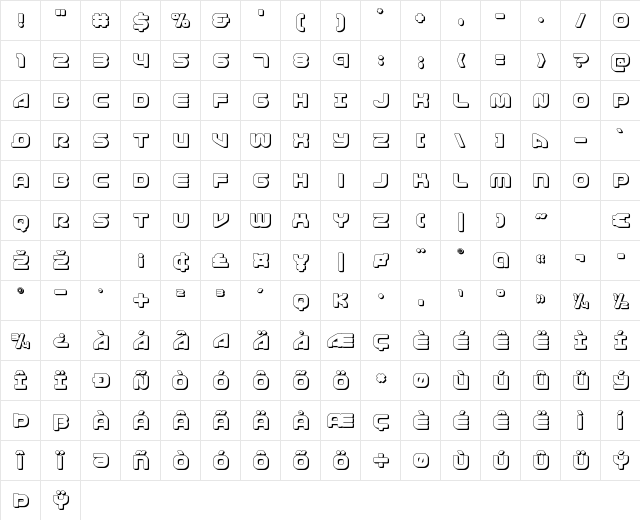
1st Enterprises 3D Regular Free Font
1st Enterprises 3D Regular
1st Enterprises 3D Family
Design Context for 1st Enterprises 3D
1st Enterprises 3D is a composed and adaptable typeface that performs quietly and consistently across a wide range of design contexts.